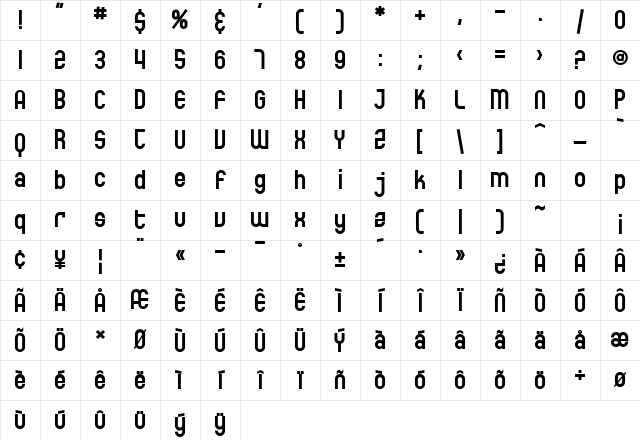
Complete SF Eccentric Opus Bold glyph index. Displaying only characters natively supported by SF Eccentric Opus Bold font.
SF Eccentric Opus is a composed and adaptable typeface that performs quietly and consistently across a wide range of design contexts. Its bold stroke weight gives it real presence on the page.